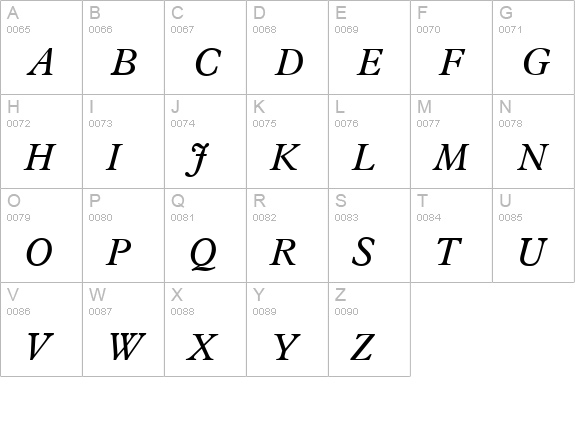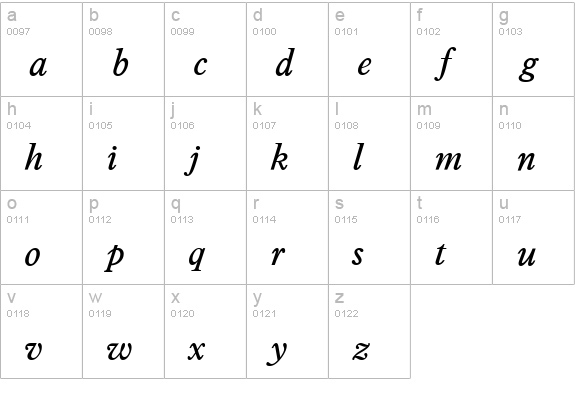
Placid-Italic is a distinctive, italic variant in the Placid typeface family \xE2\x80\x94 well suited to design and typography projects.
Placid-Italic font is a stunning and elegant typeface that exudes a sense of calmness and sophistication. Its delicate and flowing curves create a sense of tranquility, making it the perfect choice for projects that require a touch of grace and refinement. The italicized design adds a touch of flair and style, making it ideal for adding a touch of elegance to any design. Best of all, Placid-Italic font is available for free download at FontsMarket.com. This means you can easily access this beautiful typeface and use it in your projects without any cost. Whether you're designing a wedding invitation, creating a logo, or working on a branding project, Placid-Italic font will add a touch of sophistication and beauty to your work. Download it today and elevate your designs with this exquisite font.